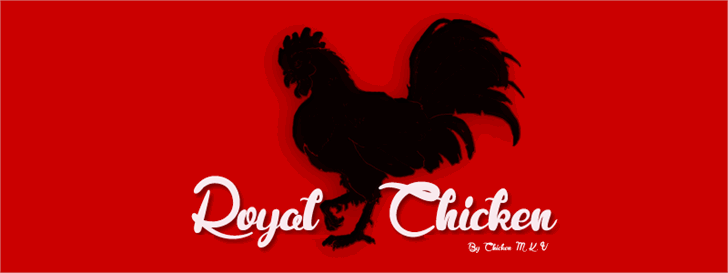
Free Royal Chicken Font
We're glad to feature this stunning free royal chicken font. This is a downloadable typeface file brought to you by Font Space. This is absolutely fancy font so you can easily make world-class designs.